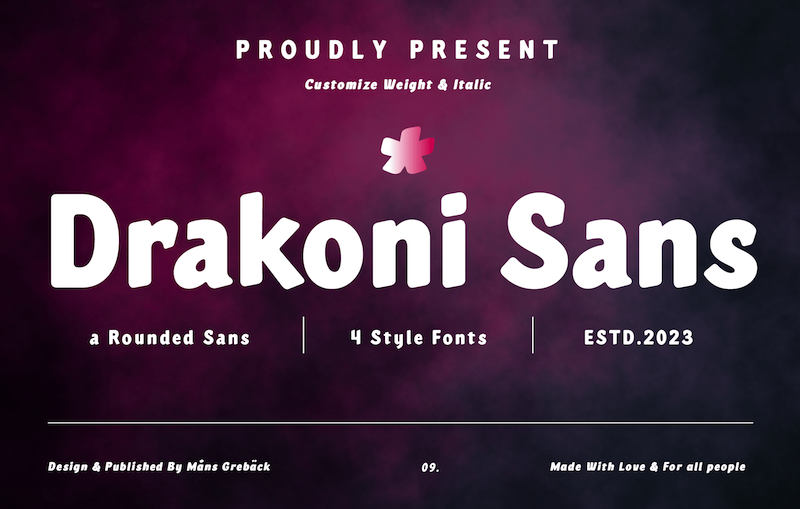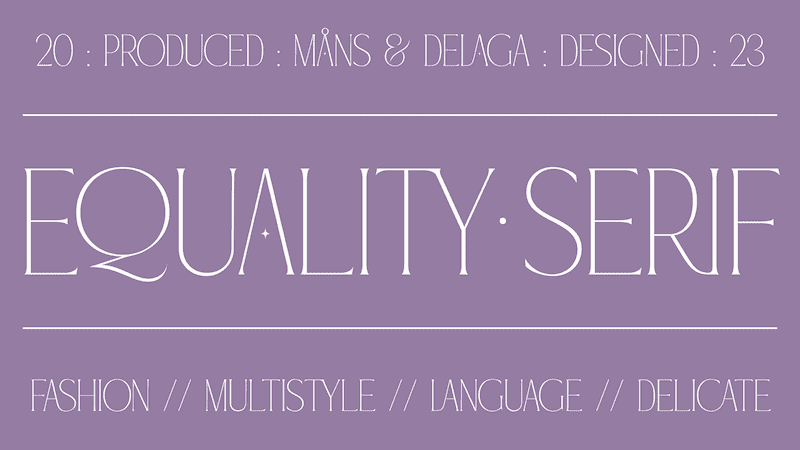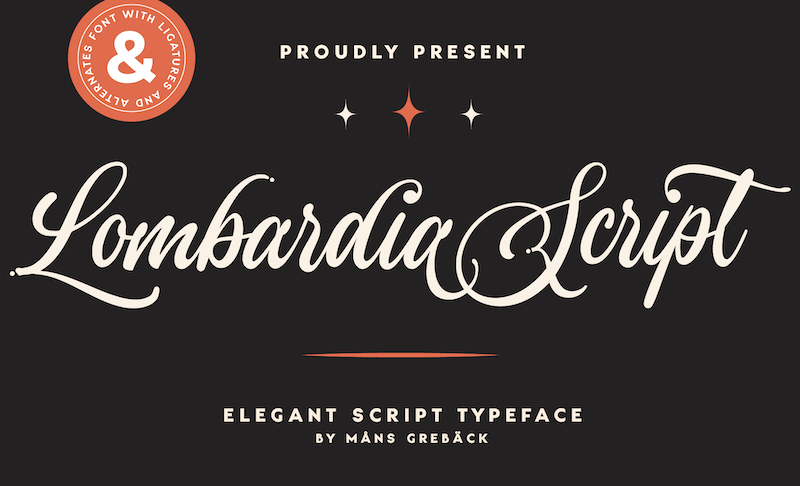
Why Fonts Matter: Reasons and Which Style Should You Use
Why must one care about fonts? Their existence sounds relatively trivial compared to other elements in the publication area. If you have the perspective, you may want to reconsider: because getting readers’ attention in seconds requires the perfect font selected. Here is what you must know to understand why fonts matter.
Why Do Fonts Matter?
Printing or digital works, fonts—for typography—serve as a reliable medium to convey your voice or message. Other than balancing the appearance of other elements of design added (as they can be different depending on the form of the media), there are several reasons that fonts are the most important in delivering your messages, such as:
1. A Medium of Communication
Colors and shapes might represent your voice well; a lot of digital works rely on them to interact with the audience. However, when needing specific information, typography is the best of all. For example, a visitor to a website will need a detailed explanation of a product through a description rather than a picture only.
In addition, one must arrange which type of font is suitable to increase readability on the website. It can even involve colors and sizes. Another example, books or newspapers only convey their messages or share the most updated information through writing. Imagine if typography did not exist; there could be no more of those media.
2. Attracting Readers’ Attention
Traditional printing uses a standardized font due to formality and readability; there might be little room for creativity. However, designers receive more flexibility to decide the most suitable styles to get the audience’s attention. This can be one of the reasons why fonts matter most in digital works.
For example, on a brochure, typography contains information about what a company is attempting to showcase. However, if the size is too small or the quality of the style is poor, readers may lose interest to learn more about the information. In other words, it is vital to select the most eye-catching font.
3. Represent Mood or Feeling
Times New Roman is one of the font styles well-known for its formality; academic documents or books perhaps will always choose it in publication to represent the mood of simplicity, readability, plainness, and professionalism. On the contrary, media-like games might need to set an exciting or playful mood for the players.
Sans-serif might be one of the best choices to represent the mood. It can be seen as glamorous for the games to read information or instruction, yet, the font can persevere the fun attitude a game is supposed to have too.
Most Suitable Media for Font Styles
Why do fonts matter? Typefaces or font styles hold multiple advantages or psychological traits suitable for specific media according to their characteristics. Below are some of the examples which you may use to align with your needs.
1. Equality Serif
Equality Serif Font
Equality Serif is an example of an improved font style of the transitional serif. It might be the fonts that matter for physical media. Its elegant strokes, classic mood, and sophisticated appearance are incomparable, more or less: the reason why academic and formal institutes are loyal to the font styles.
The other popular styles are Georgia, Palantino, Times New Roman, and Garamond.
2. Drakoni Sans
drakoni sans font
Drakoni Sans is one of the many sans-serif font styles. Although always being mistaken as serif due to the similarity in names, sans-serif font alphabets are rarely used by book publications but by companies with straightforward goals. The font styles are quite clear and clean as well.
Moreover, the styles require less space and, therefore more efficient. The classic examples of the font style are Arial, Calibri, Futura, and Helvetica.
3. Lombardia Script
lombardia script font
Most script fonts represent creativity and nature. The styles are more casual and perfect for messages. Moreover, their elegance and unique designs can reach the mood at a personal level: so dedicated and familiar. You can even choose various and unique styles inside the category, including Lambordia Script.
There are other selections of script styles: like Tangerine, Lobster, Alex Brush, and Pacifico.
Anything Catch Your Fancy?
Fonts’ existence might sound trivial, but many media depend on their different styles to convey their voice and messages. All of them can lose their readers or audience without using the perfect form to gain attention or share information. This is why fonts matter, undoubtedly.